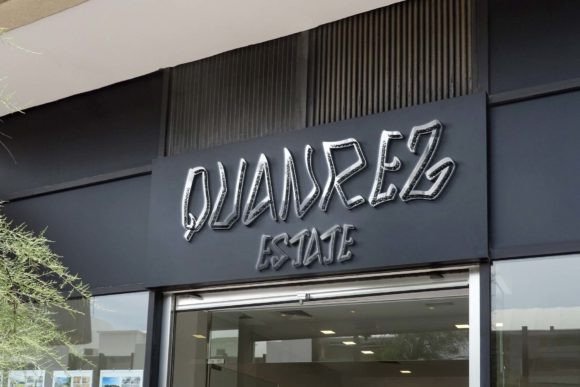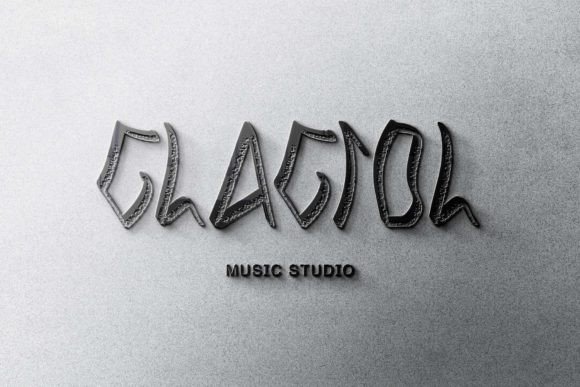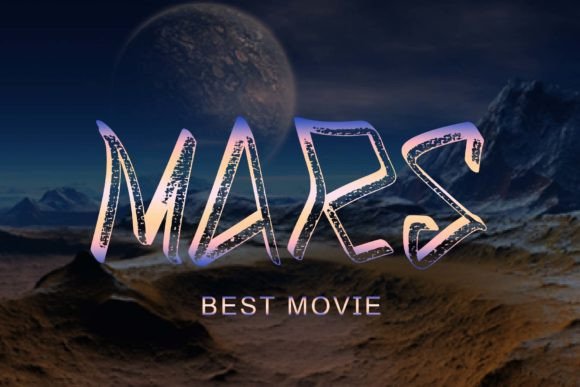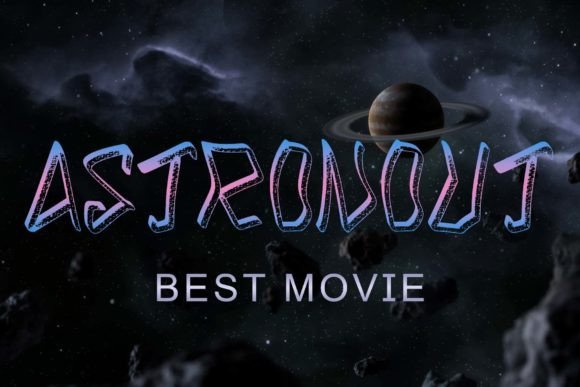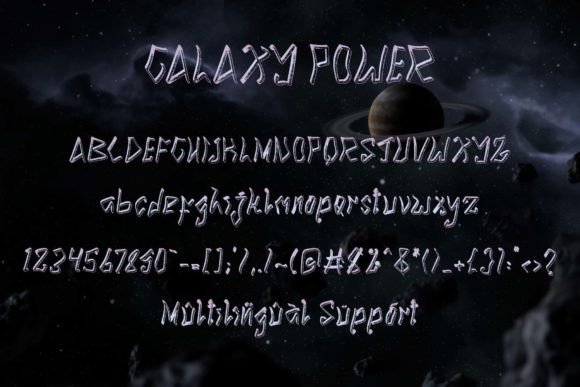
Introduction to Galaxy Power Font
Remember that moment when you’re working on a creative project, and you’re stuck trying to find the perfect font to give it that extra oomph? It’s like searching for the missing piece of a puzzle, but instead of a physical piece, it’s the perfect font that brings your design to life.
That’s where the Galaxy Power Font comes in – a game-changing design resource that’s sure to take your projects to the next level. With its elegant display block style, this font is perfect for action movie titles, graffiti, 3D works, and more. Whether you’re a seasoned designer or just starting out, the Galaxy Power Font is a valuable addition to your toolkit.
Key Features of Galaxy Power Font
- Unique Galaxy-inspired designs with a mix of futuristic and cosmic elements, perfect for creative projects.
- Features a wide range of characters, including uppercase and lowercase letters, numbers, and special characters.
- Perfect for use in various design contexts, including logos, branding, typography, and creative projects.
Honest Review: Galaxy Power Font
I recently came across the Galaxy Power Font, and I must say it’s been a great addition to my design resource collection. The font is a high-quality, versatile design element that can elevate any creative project.
Here are some things that I really like about the Galaxy Power Font:
- ✨ The font has a high-quality, detailed design that looks great on a transparent background, making it perfect for designing visuals for web and social media.
- ✨ The font is highly customizable, making it easy to use in a variety of creative projects, from logo design to graphic design.
However, I do have a few limitations to mention:
- ⚠️ The font may not be suitable for all types of design projects, particularly those that require a more traditional or classic look.
The Galaxy Power Font is a high-quality design resource ideal for creative projects. This free download is perfect for adding a touch of futuristic elegance to your designs. With its transparent background, it’s easy to layer and manipulate in your favorite design software.
Getting the Most Out of Galaxy Power Font
To get the most out of the Galaxy Power Font, try combining it with other design elements, such as bold lines, neon colors, and futuristic shapes. Experiment with different font sizes, colors, and effects to create unique and eye-catching designs.
The Galaxy Power Font is perfect for a variety of creative projects, including: futuristic branding, sci-fi movie posters, video game titles, and space-themed merchandise. Its high-quality design and transparent background make it a versatile and valuable design resource.